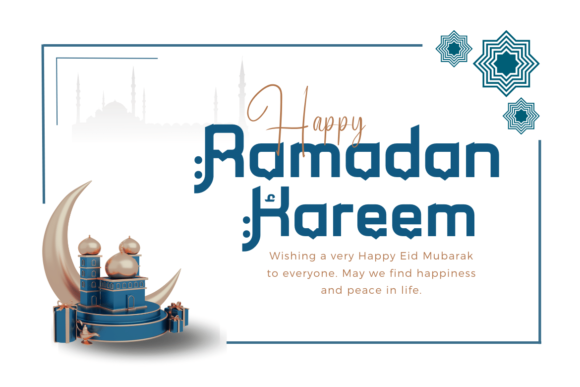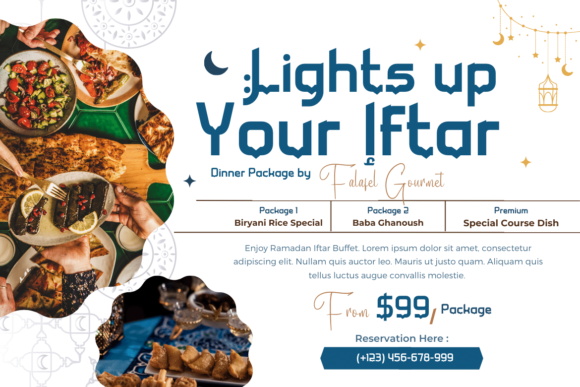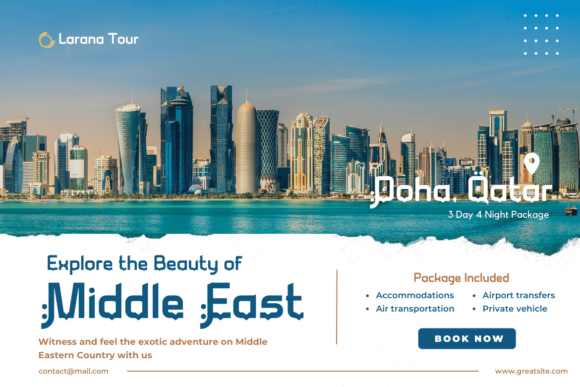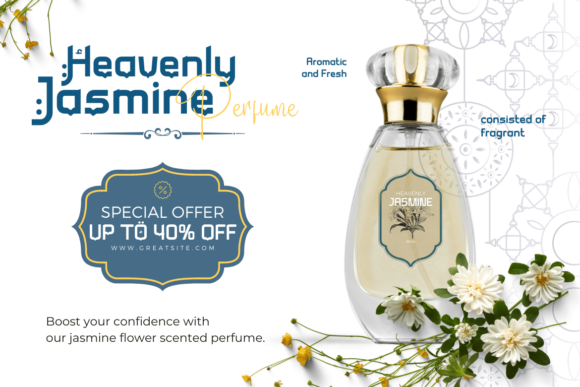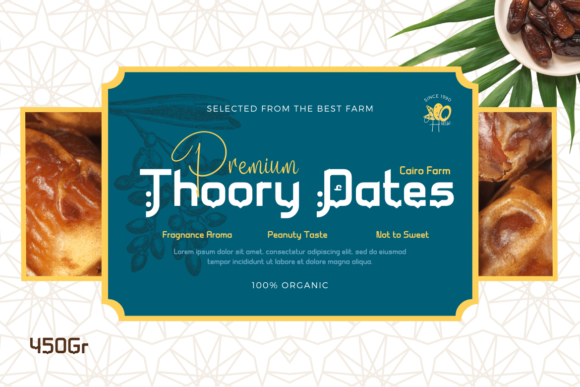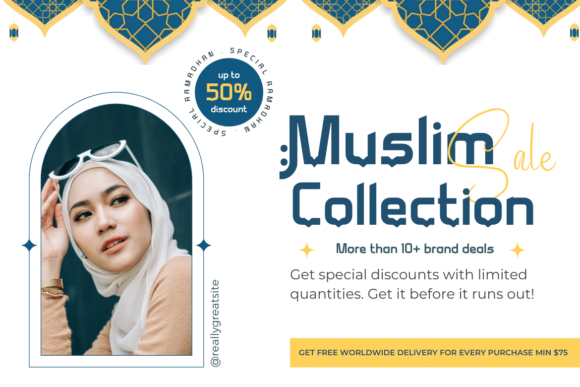
Introduction to Koweti Font
Koweti is a unique and premium Arabic styled display font.
It was specially designed to bring luxury and prestige to your creations This unique letterform gives you the flexibility to create the look and feel you need for any occasion.
Key Features of Koweti Font
Why Choose Koweti Font?
Koweti Font offers exceptional quality and versatility, making it a valuable addition to your design toolkit. Whether you’re creating for personal projects or commercial use, Koweti Font delivers professional results.